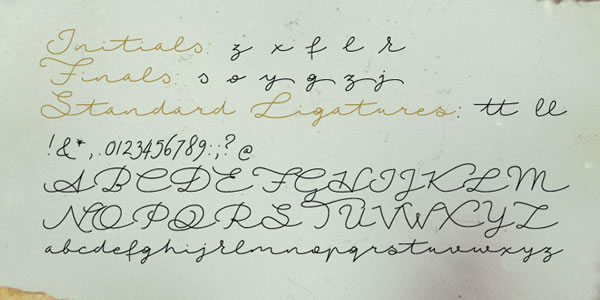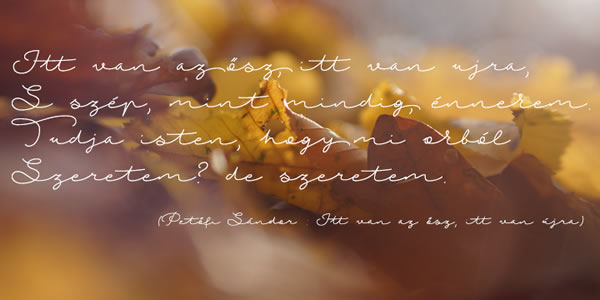
Discover the Charm of Autumn Chant Font: A Beautiful Handwritten Script
As the seasons change and autumn leaves start to fall, designers and crafters are on the lookout for fonts that capture the cozy, warm, and inviting essence of this time of year. If you’re searching for a font that embodies the spirit of autumn, look no further than the Autumn Chant font. In this article, we’ll dive into the details of this beautiful casual handwritten monoline script font, created by talented type designer Roland Hüse.
About Autumn Chant Font
Autumn Chant is a gorgeous, easy-going handwritten monoline script font that exudes a sense of comfort and friendliness. This font is perfect for designers and crafters who want to add a personal touch to their projects, whether it’s a blog post, social media graphic, or a craft project like a fall-themed card or invitation. The font’s monoline script style gives it a smooth, fluid feel that’s reminiscent of handwritten letters and notes.
Design and Features
Roland Hüse, the creative mind behind Autumn Chant, has carefully crafted this font to be both elegant and approachable. The font features:
- A casual, handwritten monoline script style
- Smooth, flowing lines that give the font a natural feel
- A wide range of characters, including uppercase and lowercase letters, numbers, and punctuation marks
- Support for multiple languages
These features make Autumn Chant a versatile font that can be used in a variety of design projects, from digital graphics to print materials.
Uses for Autumn Chant Font
Autumn Chant is a fantastic font for designers and crafters who want to add a touch of autumnal charm to their projects. Here are some ideas for using this beautiful font:
- Fall-themed crafts, such as cards, invitations, and decorations
- Blog posts and social media graphics about autumn, seasonal recipes, or fall fashion
- Branding and packaging for seasonal businesses, like pumpkin patches or apple orchards
- Personalized gifts, such as monogrammed towels or customized mugs
Whether you’re a professional designer or a crafty hobbyist, Autumn Chant is a great font to have in your collection.
Tips for Using Autumn Chant Font
To get the most out of Autumn Chant, here are a few tips:
- Pair Autumn Chant with a bold, sans-serif font for a striking contrast
- Use Autumn Chant in combination with fall-themed graphics, like leaves or pumpkins, to create a cohesive design
- Experiment with different colors, like warm reds and oranges, to evoke the feeling of autumn
- Don’t be afraid to add embellishments, like glitter or texture, to give your design a more handmade feel
By following these tips, you can create beautiful, eye-catching designs that showcase the charm of Autumn Chant.
In conclusion, Autumn Chant font is a beautiful, casual handwritten monoline script font that’s perfect for designers and crafters who want to add a touch of autumnal charm to their projects. With its smooth, flowing lines and wide range of characters, Autumn Chant is a versatile font that can be used in a variety of design projects. Whether you’re creating fall-themed crafts, blog posts, or branding materials, Autumn Chant is a great choice. So why not give it a try and see how this lovely font can enhance your designs?